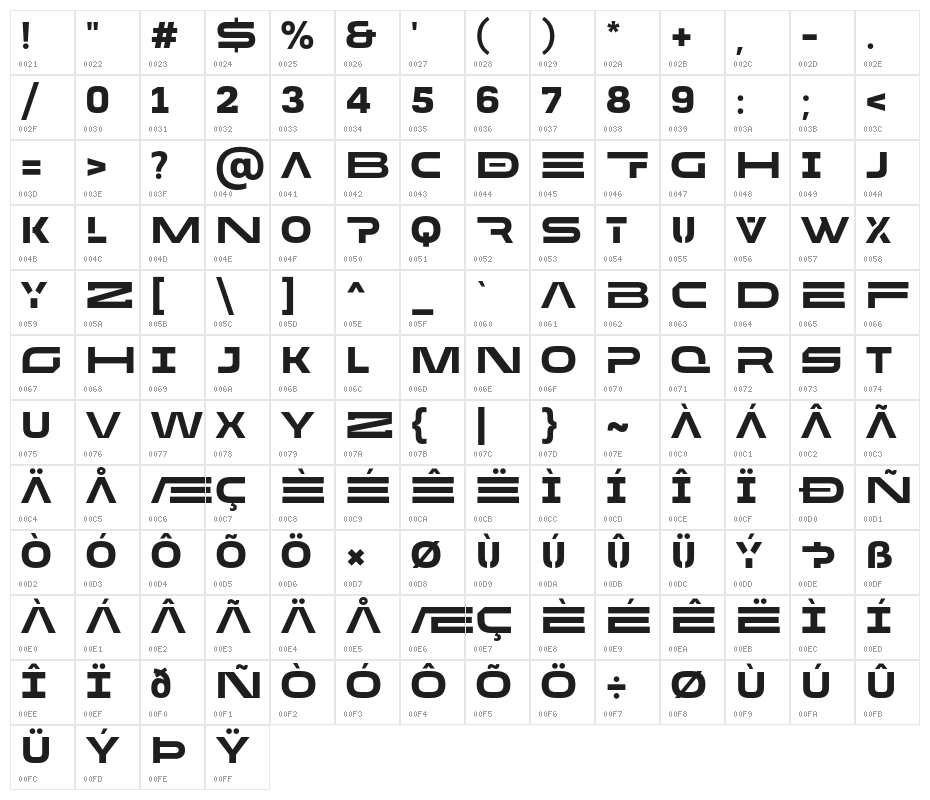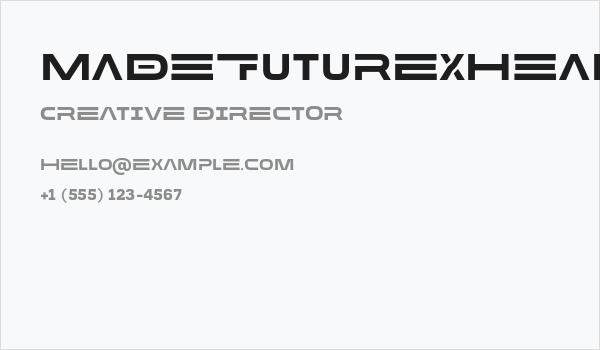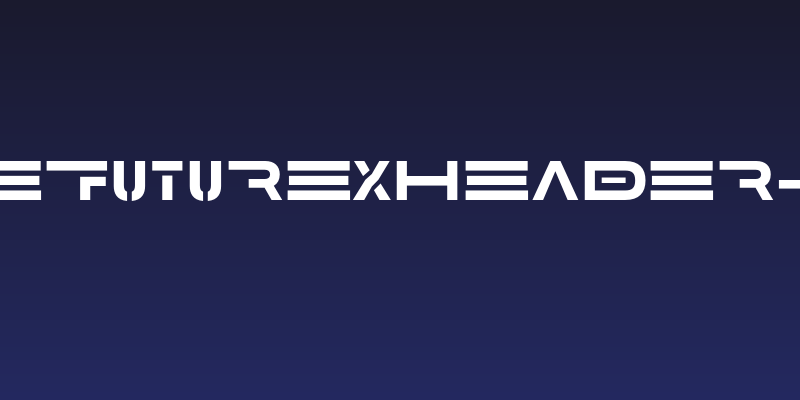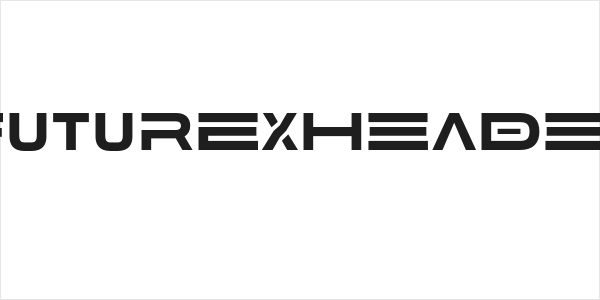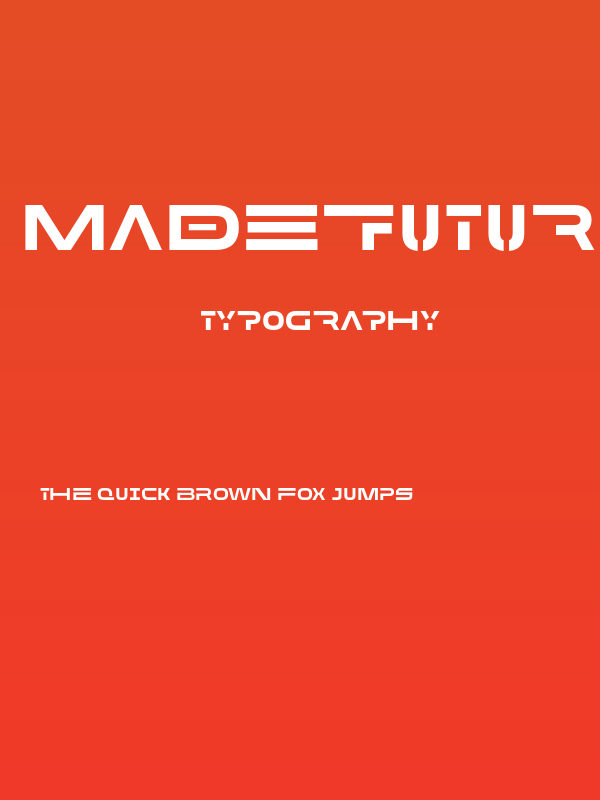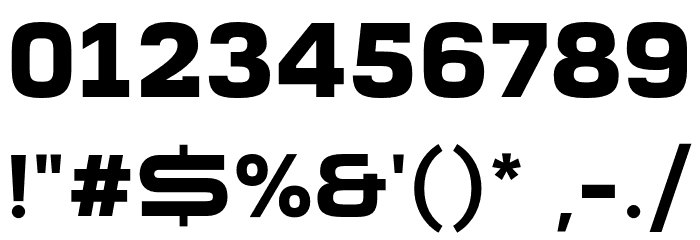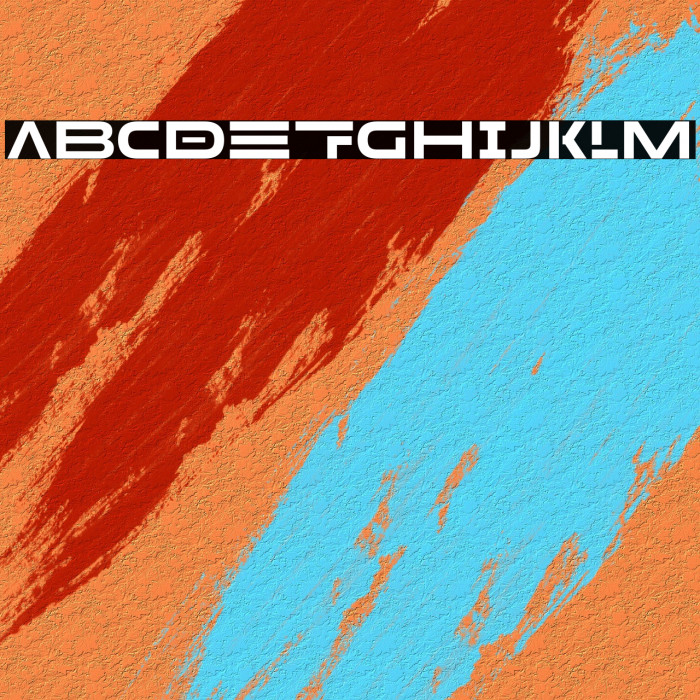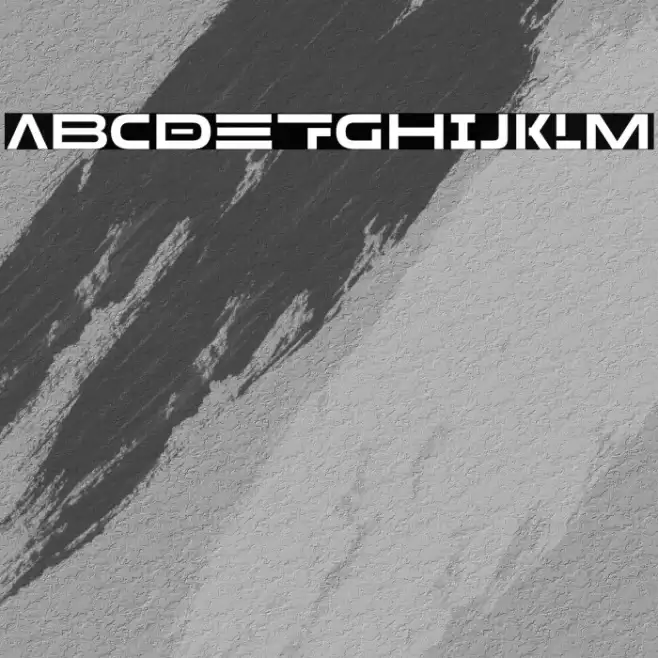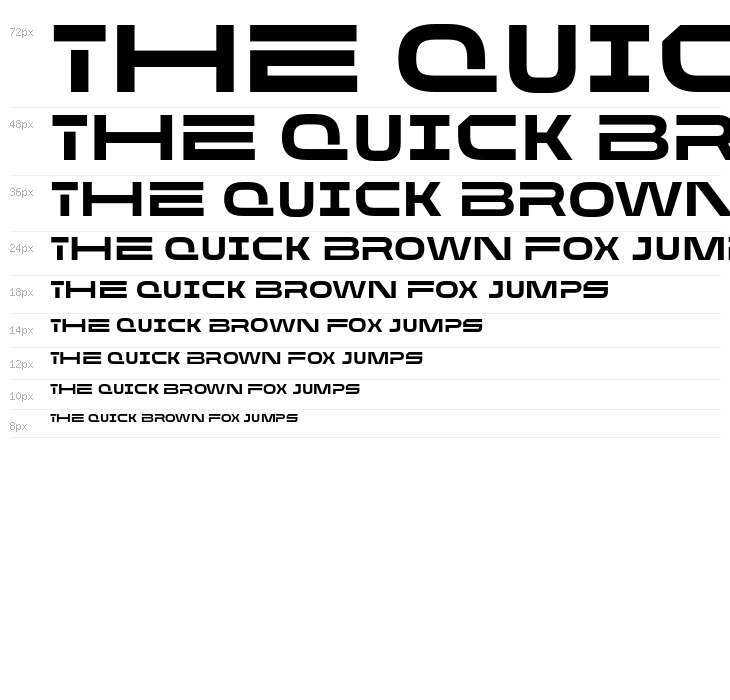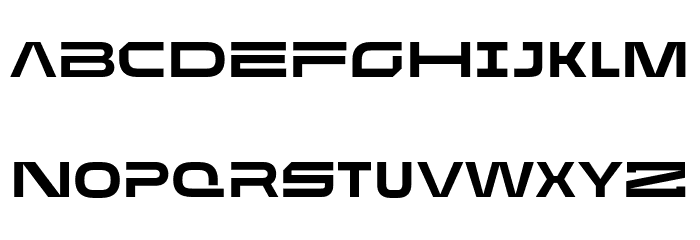
MADEFutureXHEADER-Bold Font
MADEFutureXHEADER-Bold Description
This font features a futuristic and bold design with geometric elements and sharp angles. The uppercase letters are distinct with unique cuts and lines, giving a modern and tech-inspired appearance. The lowercase letters maintain a consistent style, complementing the uppercase with similar geometric features. The numerals are bold and clear, ensuring readability while maintaining the overall aesthetic. Special characters are designed to match the font's futuristic theme, making it suitable for digital and tech-related projects. The font's bold weight and modern style make it stand out, ideal for attention-grabbing designs.